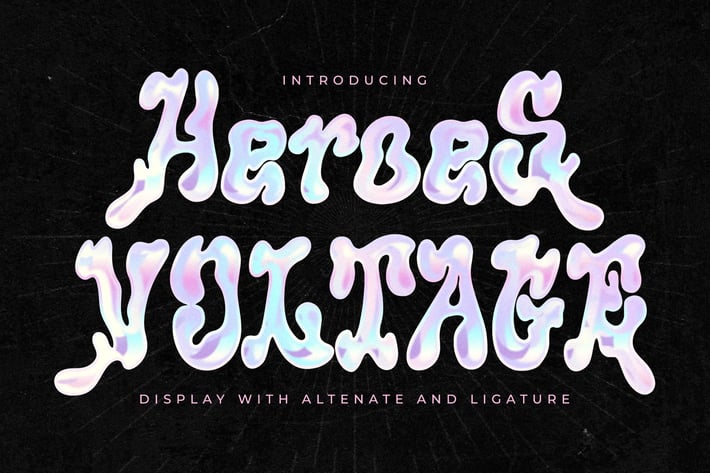
Heroes Voltage Display Sans Serif Font
Heroes Voltage is a bold and electrifying display font with unique letterforms and futuristic curves. Designed to make your headlines, posters, and branding stand out, this typeface blends retro-inspired energy with a modern edge. Perfect for eye-catching creative projects where style and strength are essential.
+ Unique display sans serif design
+ Alternates and ligatures included
+ Multilingual support
+ Strong and bold visual presence
+ High readability for display usage
+ Posters & headlines
+ Branding & logos
+ Sports and fitness projects
+ Music covers & event flyers
+ Creative digital content
Bring electrifying energy to your designs with Heroes Voltage – a bold display font that commands attention and sparks creativity.